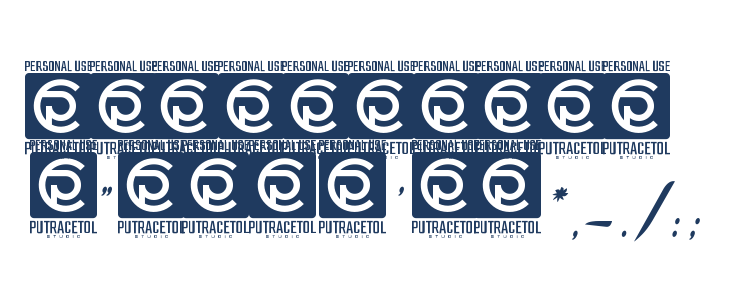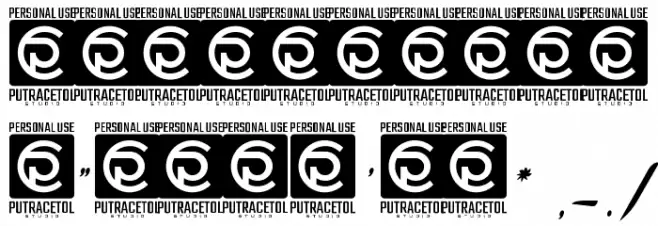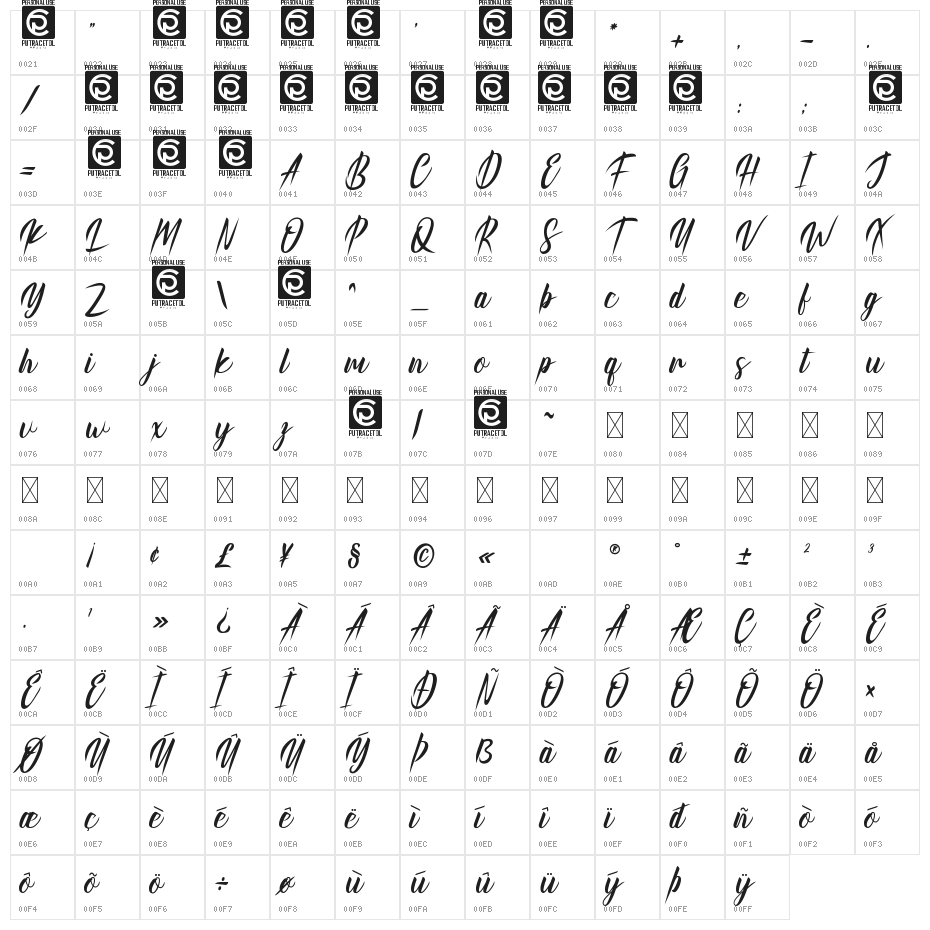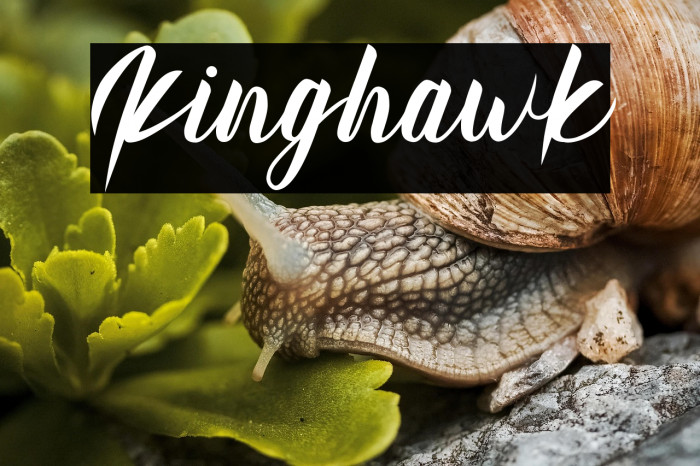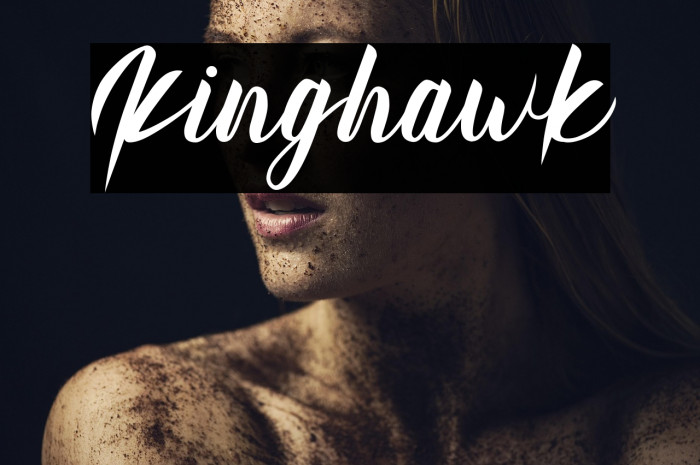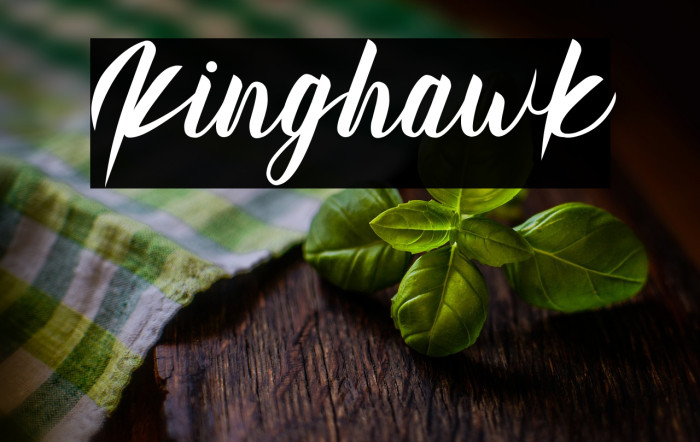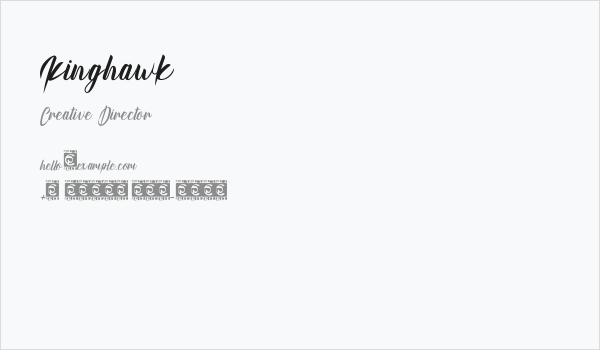
Kinghawk Font
Kinghawk Description
This font exudes a dynamic and energetic style, characterized by its fluid, script-like appearance. The letters are crafted with a sense of motion, featuring sharp, angular strokes that convey a sense of speed and modernity. The uppercase letters are bold and commanding, while the lowercase letters maintain a consistent flow, enhancing readability. The font's design is both artistic and functional, making it suitable for a variety of creative applications. The special characters are seamlessly integrated, maintaining the overall aesthetic of the font. This font is ideal for projects that require a touch of elegance and flair, such as branding, invitations, and editorial design.